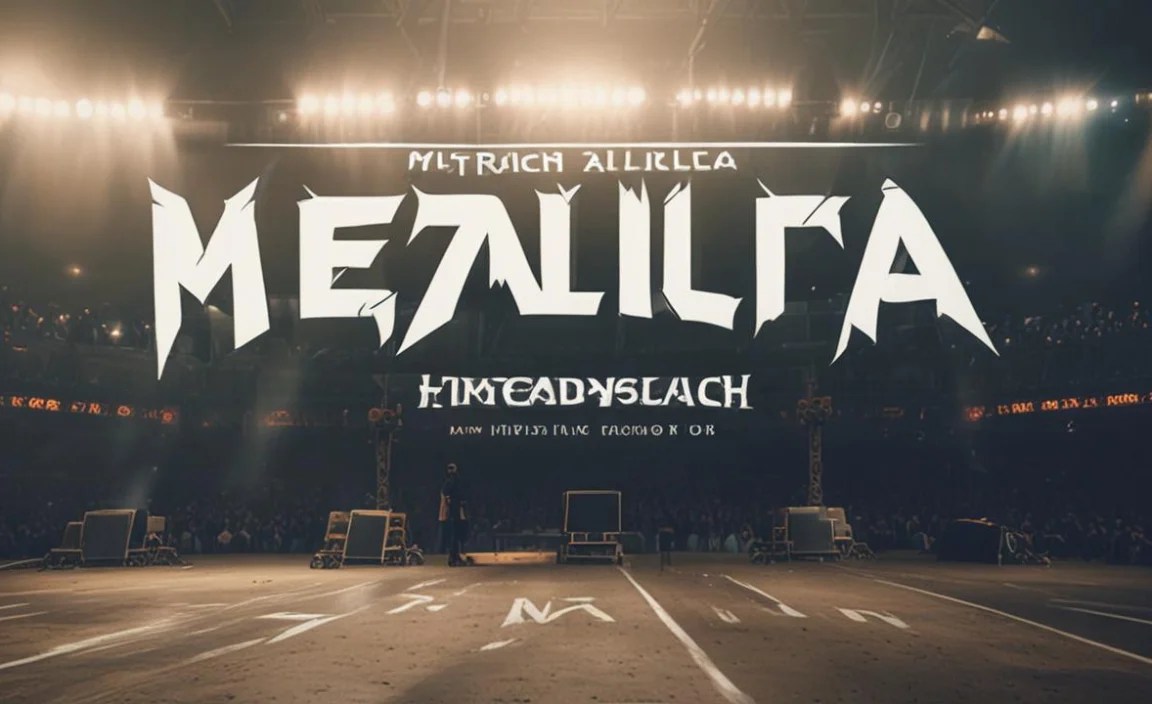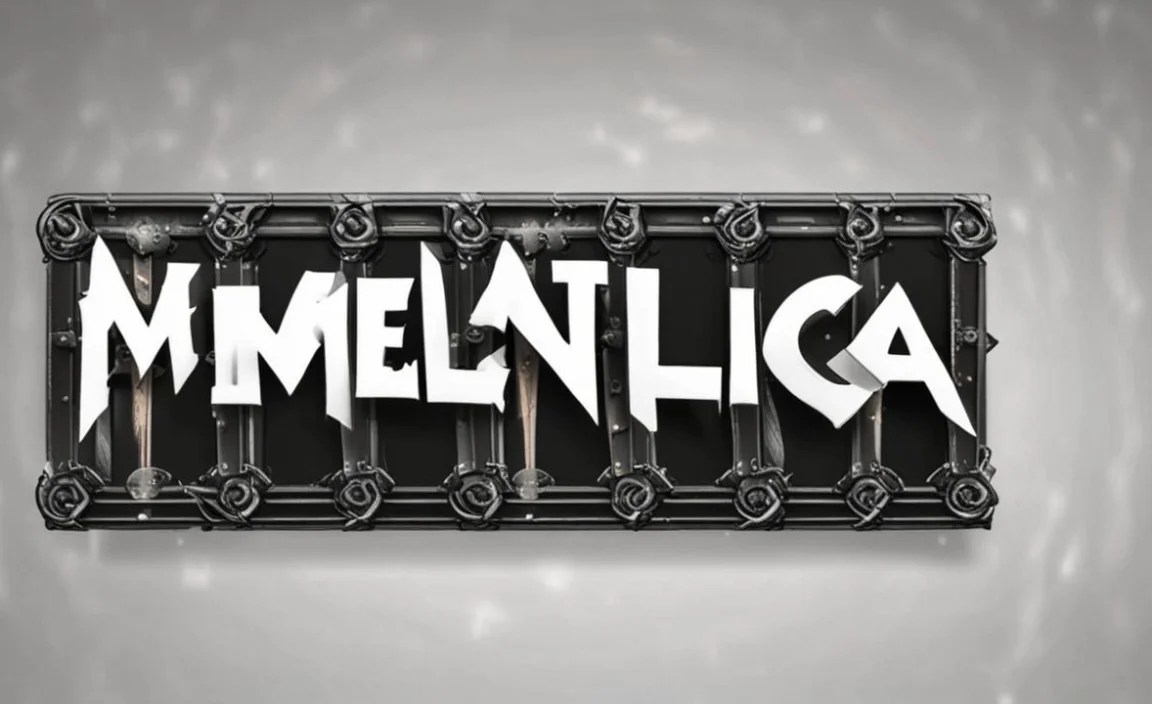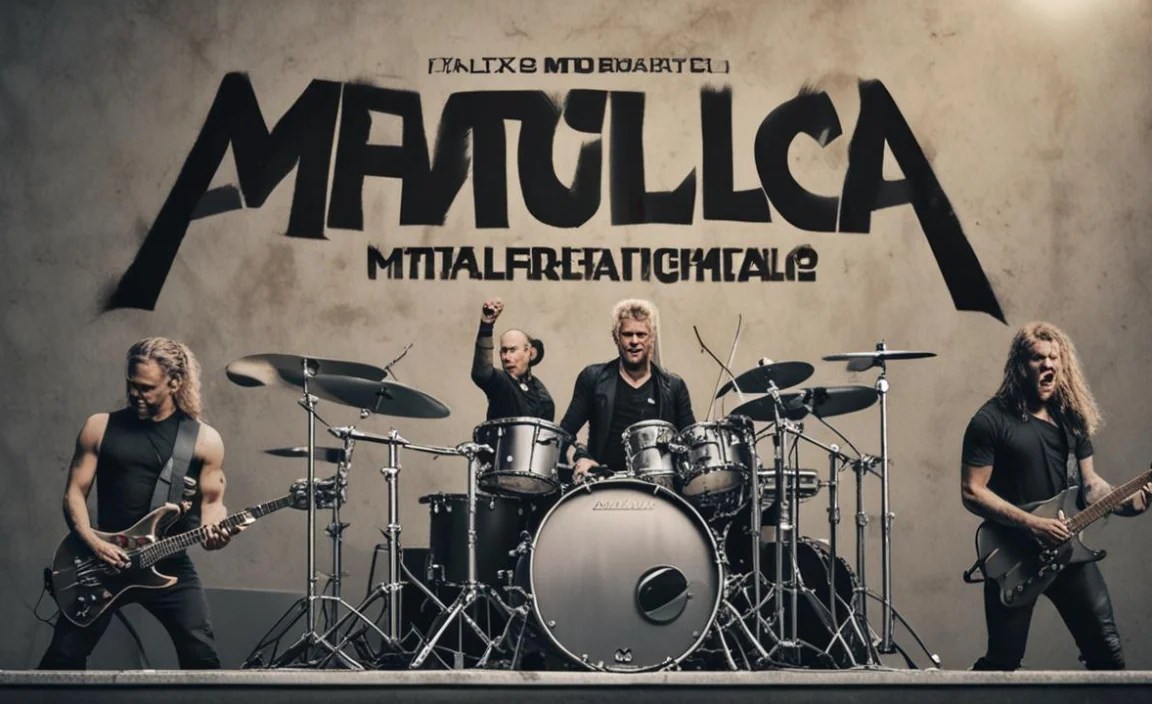
The Metallica Font, often referred to as “Pastor of Muppets,” is a distinctive typeface inspired by the iconic Metallica logo. Designed by Ray Larabie, this font is celebrated for its rock-inspired style that mirrors the band’s branding. Its bold and edgy design is perfect for projects that want to capture the essence of heavy metal aesthetics.
Metallica Font Information
| Name | Metallica Font |
| Style | Display |
| Designer | Ray Larabie |
| Type | Rock-Inspired |
Metallica Font Family Includes
- Metallica Regular
- Metallica Bold
- Metallica Italic
- Metallica Solid
- Metallica Script
- Metallica Thin
- Metallica Retro
Where Metallica Font Is In Use
Metallica Font is ideal for creating designs with a rock edge. Utilize this font in various design contexts to enhance its bold, metallic look. Recommended applications include:
- Band Merchandise
- Concert Posters
- Album Covers
- Rock-Themed Branding
- Fan Art
- Event Flyers
- Music Festival Graphics
Metallica Font Alternative
Metallica Font FAQs
1. What Are The Different Weights Available For The Metallica Font?
The Metallica Font is available in a single weight, Regular.
2. How Does The Metallica Font Compare To Other Similar Fonts?
Metallica Font features a distinctive rock-inspired style with angular and sharp characteristics, setting it apart from other fonts like “Iron Maiden” or “Rockwell.”
3. What Are The Most Popular Applications For The Metallica Font?
Popular uses include band merchandise, concert posters, album covers, and other rock-themed designs.
4. What Are The Features Of The Metallica Font?
Features include bold uppercase letters, sharp edges, and a striking metal-inspired aesthetic.
5. Why Is Metallica Font Popular In Design?
The font’s rock-inspired design and distinctive style make it a favorite for heavy metal and music-related projects.